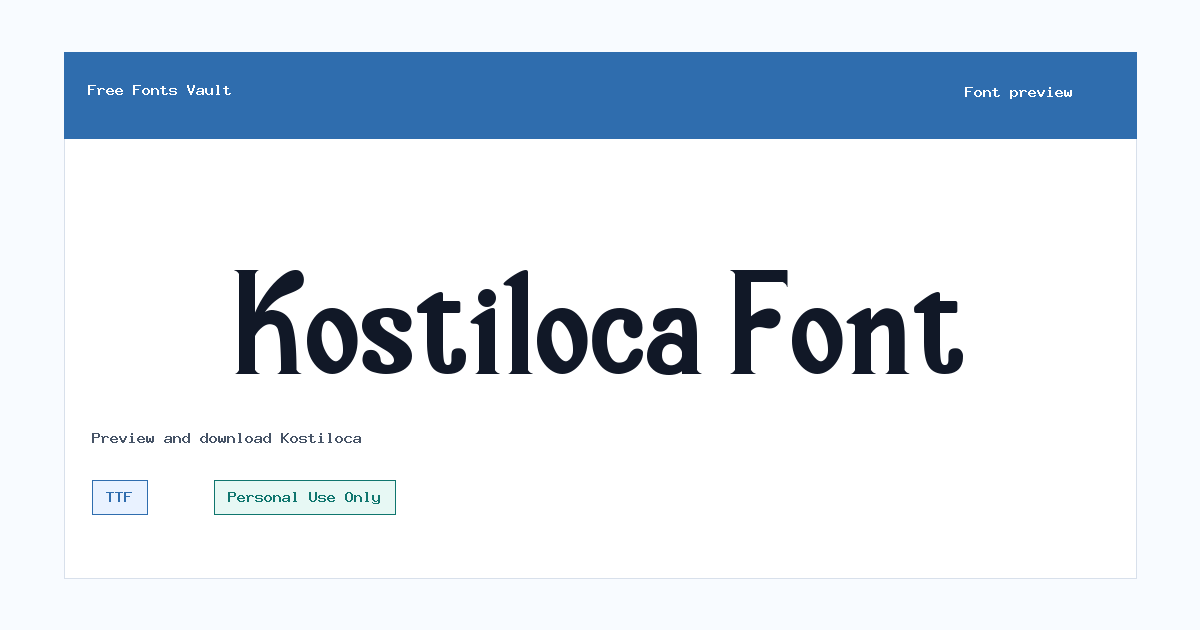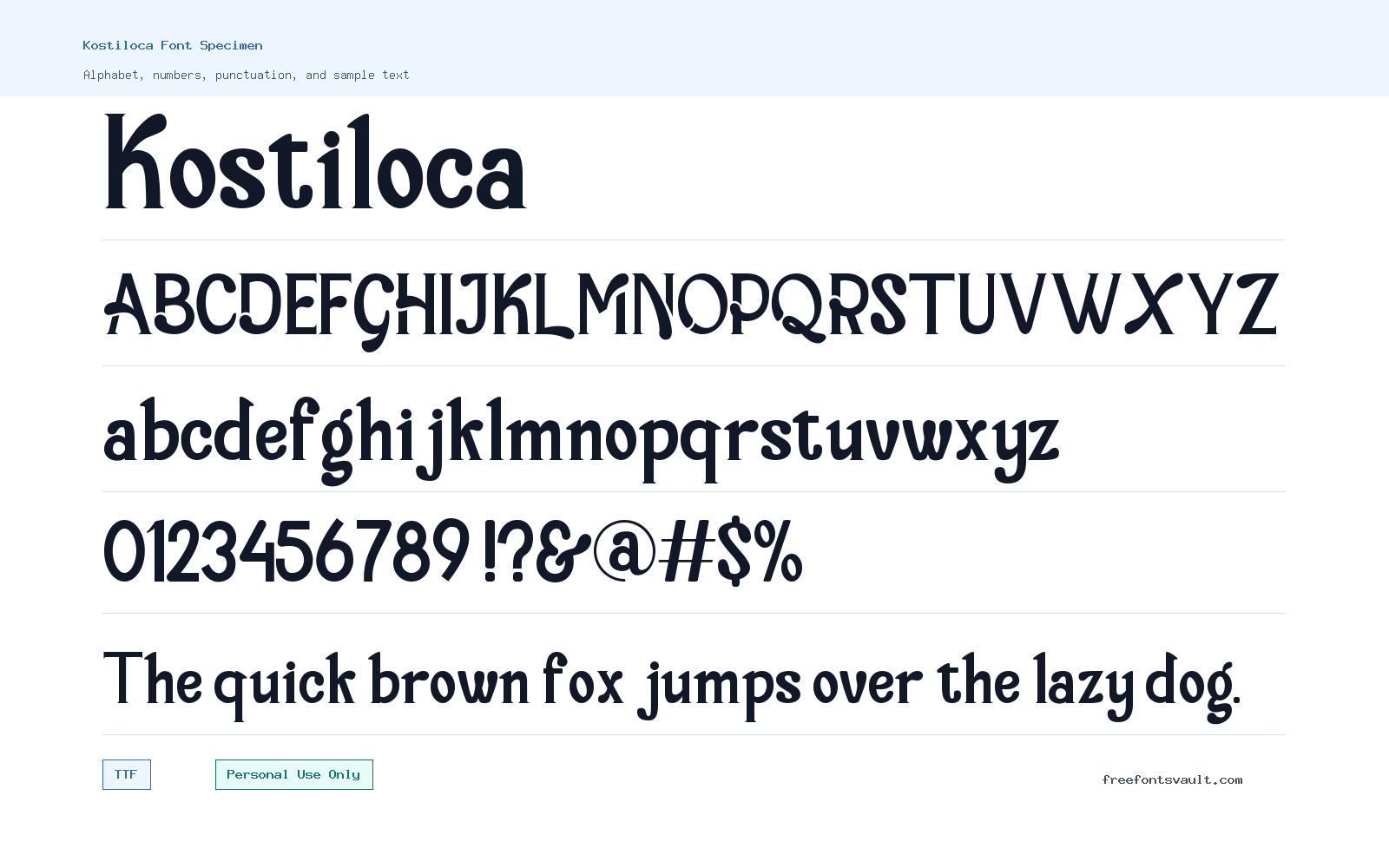
Kostiloca
Kostiloca font.
About Kostiloca Font
Kostiloca works best when you need a font to carry the visual mood of a title, logo-style word, poster heading, label, thumbnail, or social graphic. Because the available file is presented as a display font, treat it as a headline face first: test it at larger sizes, compare uppercase and lowercase forms if both are supported, and check spacing around tricky letter pairs before using it in a final layout.
- Display-focused style suited to short text and large-size previews
- Personal poster titles, social graphics, and creative mockups
What kind of projects is Kostiloca best for?
Use it for personal projects that need a display-style headline, such as posters, graphics, mockups, and title treatments. It is not the safest choice for long paragraphs.